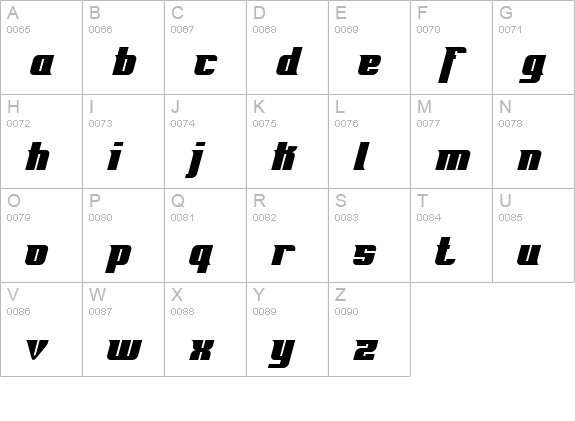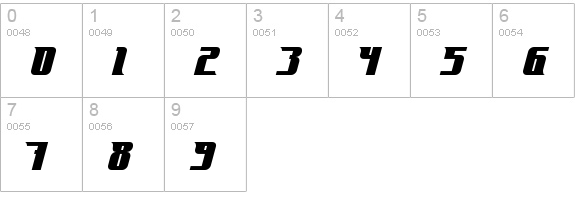
Fontovision Font Details
Introducing Fontovision font, a modern and stylish typeface that effortlessly combines elegance with readability. This versatile font is perfect for a wide range of design projects, from branding to editorial layouts. With its clean lines and balanced proportions, Fontovision font exudes sophistication and professionalism. What sets Fontovision font apart is that it is completely free to download at FontsMarket.com. Now you can elevate your designs without breaking the bank. Whether you're working on a logo, website, or print materials, Fontovision font will add a touch of class to your projects. Don't miss out on this opportunity to enhance your creative work with a high-quality font that won't cost you a penny. Download Fontovision font today and take your designs to the next level!